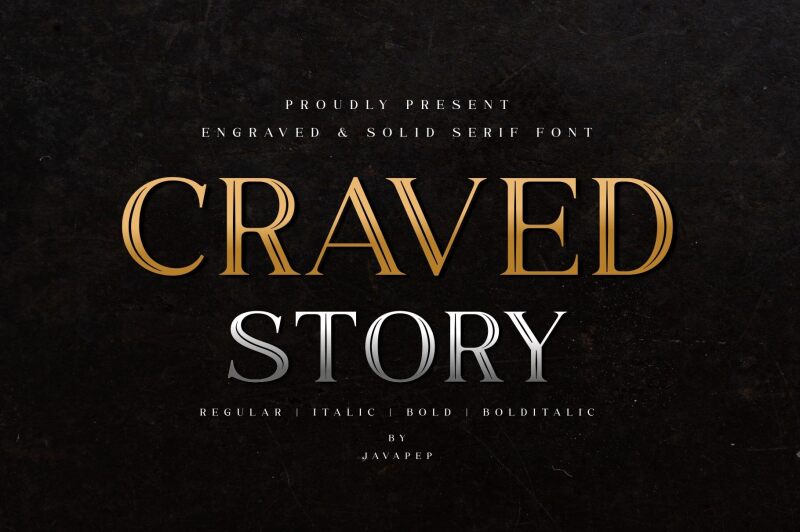
Craved Story Italic
Craved Story Italic, designed by Java Pep, is a serif font that boasts an elegant semi-expanded width, lending it a distinct presence on any page or screen. The graceful italics of Craved Story Italic add a touch of sophistication to the text, making it an ideal choice for projects that require a narrative depth and stylistic flair.
With its carefully crafted letterforms, this font presents a harmonious balance between classic typography and contemporary design. Its serifs are subtle yet pronounced, creating a visual cadence that guides the reader through each sentence with ease.
The semi-expanded width of Craved Story Italic offers designers the flexibility to use it in various contexts without losing legibility or aesthetic appeal. Whether employed in the body text of an editorial piece or as part of an evocative branding project, this font stands out for its ability to marry readability with style.
Craved Story Italic's versatility extends across print and digital mediums. Its charismatic curves and nuanced weight make headlines pop and can turn any invitation into something truly special. In summary, this typeface from the Craved Story family is not just about making words look beautiful-it's about crafting stories that resonate visually and emotionally with every curve and line.